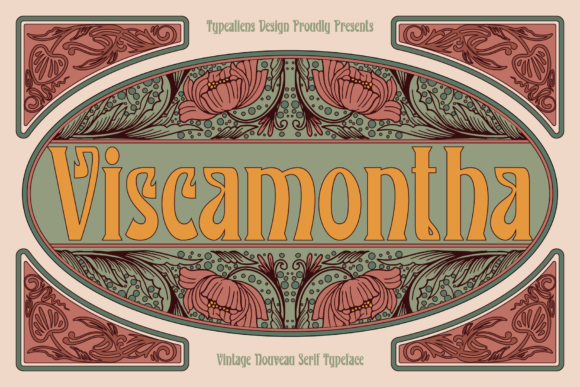
Embark on a typographic odyssey with Viscamontha, a display font that adds an audacious charm to your creative endeavors. Its bold strokes and thick letters command attention, inviting you to craft captivating designs that resonate with a vintage allure. Drawn to perfection by the skilled hands of Typealiens, Viscamontha is more than just a font; it's a conduit for expressing your ideas with a style that transcends time.
Immerse yourself in the realm of vintage literature, where Viscamontha's presence ignites the imagination. Picture book covers adorned with its playful characters, their adventures unfolding in a symphony of whimsical strokes. Let its essence transport you to a bygone era, where classic novels come alive with each word, painted in the vibrant hues of Viscamontha's palette.
Unleash your creativity and let Viscamontha guide your hand as you design posters that capture the essence of nostalgia. Its bold presence demands attention, transforming ordinary words into extraordinary statements that linger in the memory. Become the architect of eye-catching brand names, where Viscamontha's unique personality adds a touch of distinction, setting your brand apart in a crowded marketplace.
For those with a penchant for the whimsical, Viscamontha is your perfect companion. Its playful nature lends itself seamlessly to children's games and animations, bringing a smile to the faces of young and old alike. Let your imagination run wild as you create cartoon characters that leap off the screen, their every move imbued with the infectious energy of Viscamontha.
The versatility of Viscamontha knows no bounds. Whether you're crafting logos, designing social media graphics, or simply adding a touch of vintage charm to your personal projects, this font is your trusted ally. Its adaptability ensures that your creations stand out, leaving an indelible mark on your audience.
Don't settle for ordinary fonts; embrace the extraordinary with Viscamontha. Let its bold strokes and playful spirit ignite your imagination, propelling you to new heights of creativity. Download Viscamontha today and unlock a world of possibilities, where your designs take center stage and your ideas come to life with captivating flair.